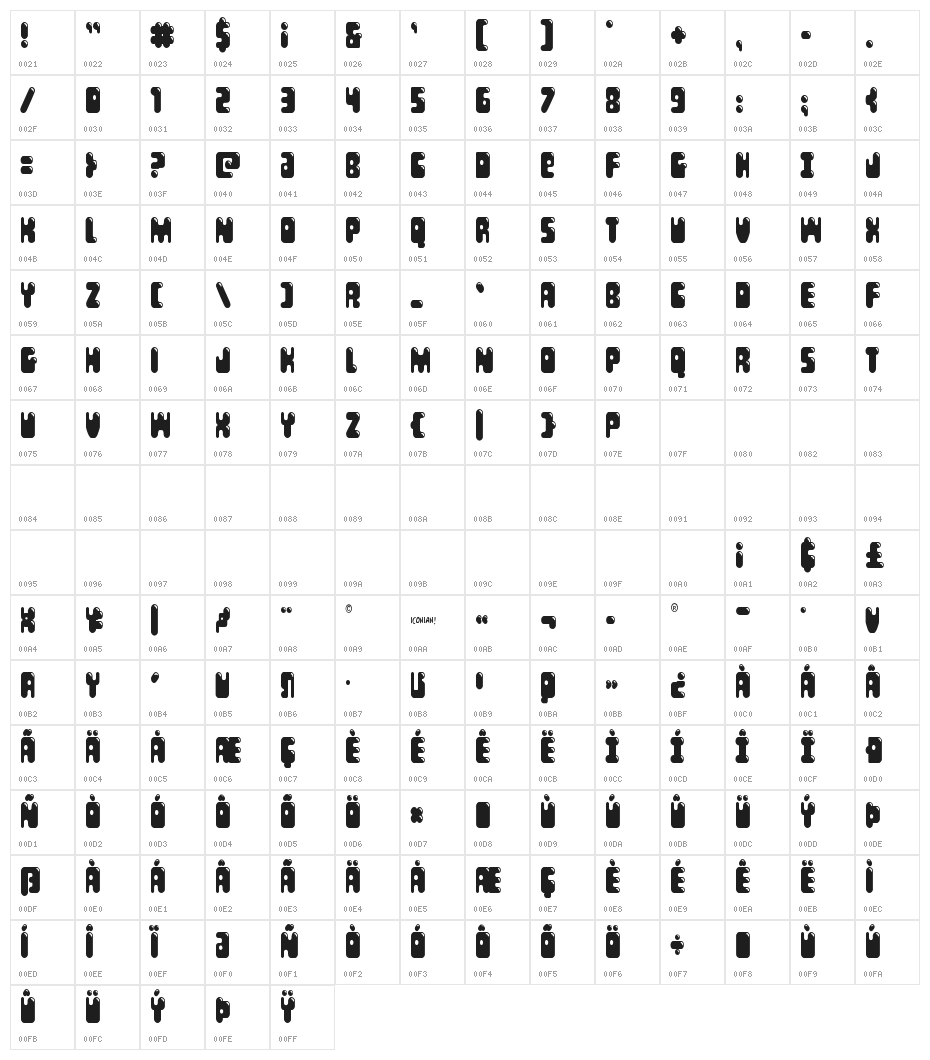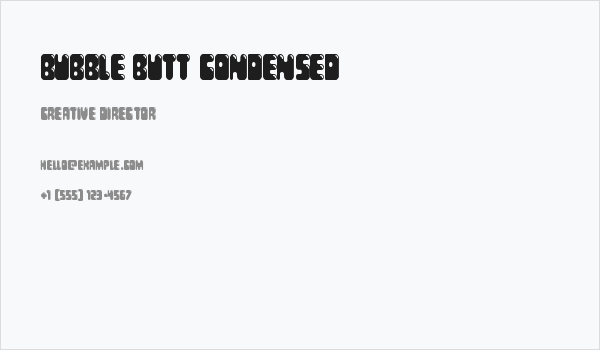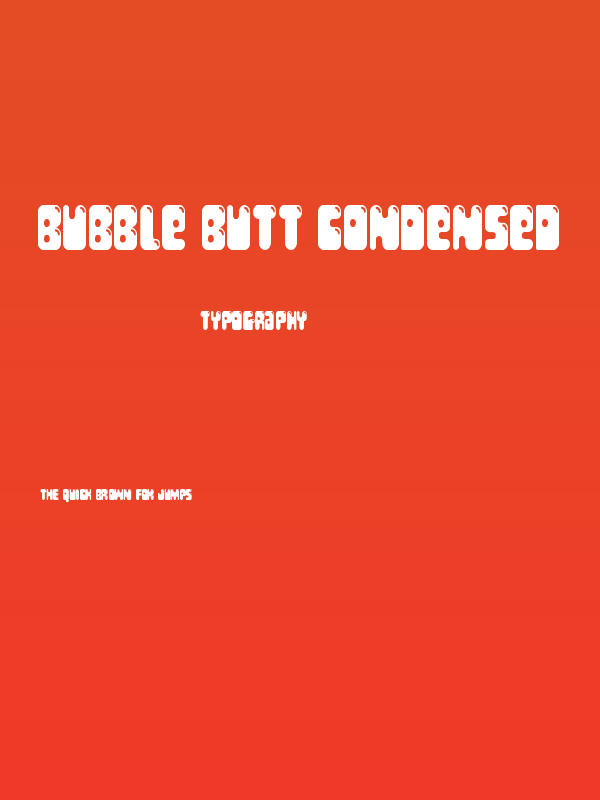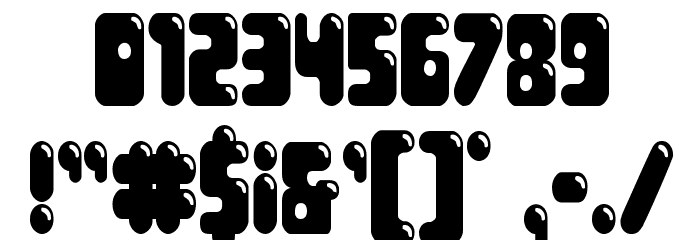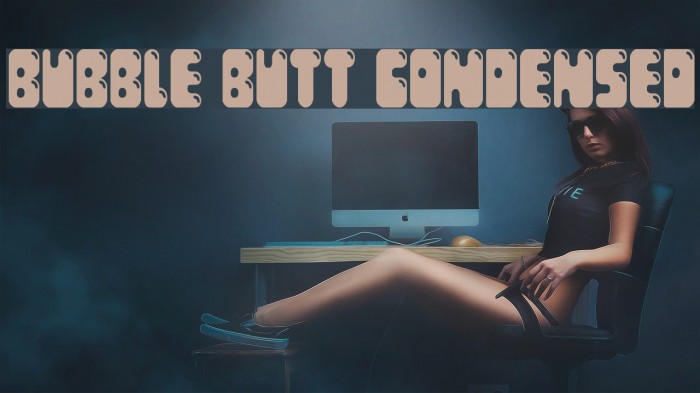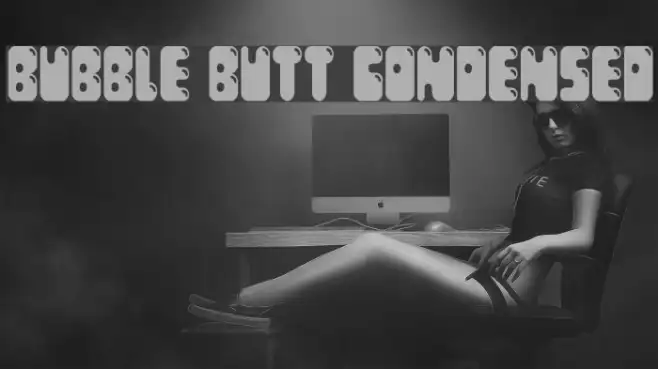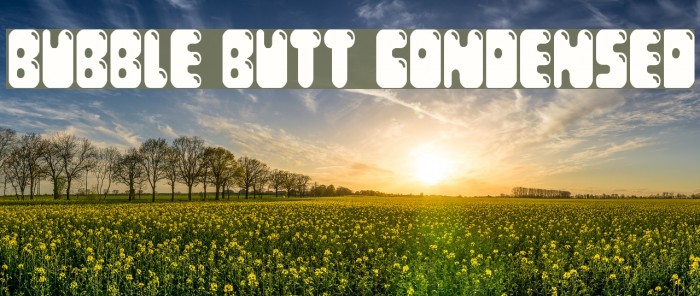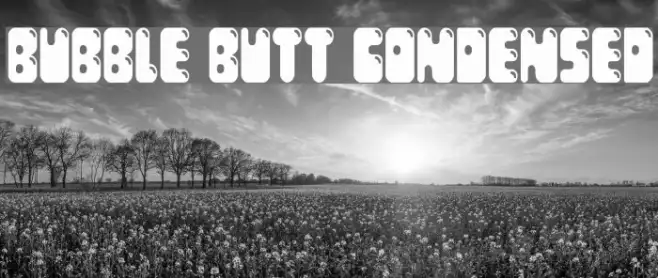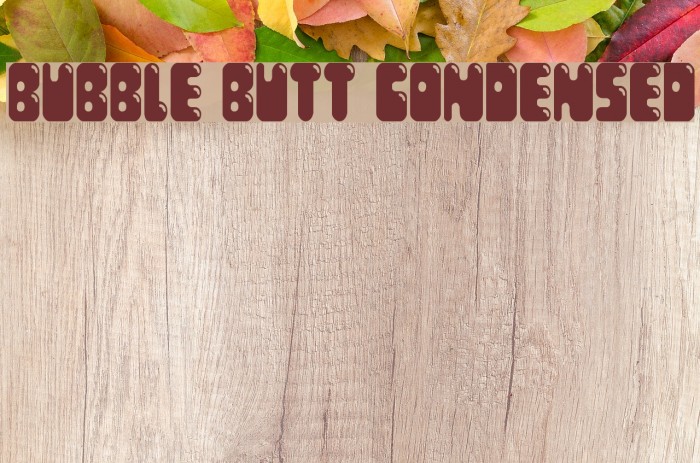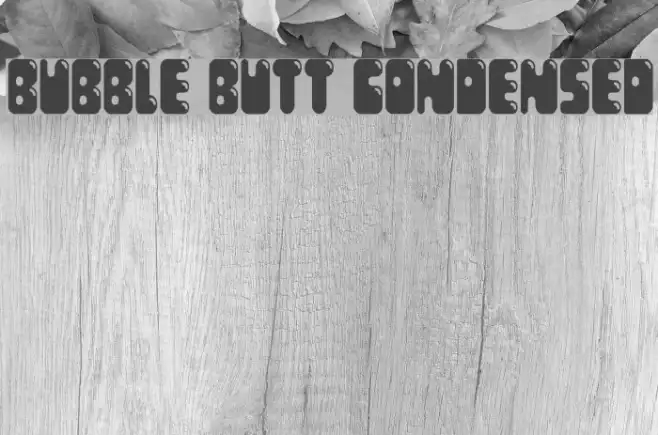
Bubble Butt Condensed Font
Bubble Butt Condensed Description
This playful and bold typeface features rounded, bubble-like characters with a condensed structure. Each letter is designed with a consistent thickness, giving it a uniform appearance. The font is characterized by its unique, whimsical style, with small cutouts that add a touch of fun and creativity. The uppercase and lowercase letters maintain a cohesive look, while the numbers and special characters complement the overall design. This font is ideal for projects that require a lively and eye-catching aesthetic.